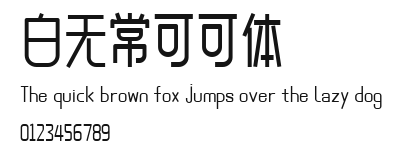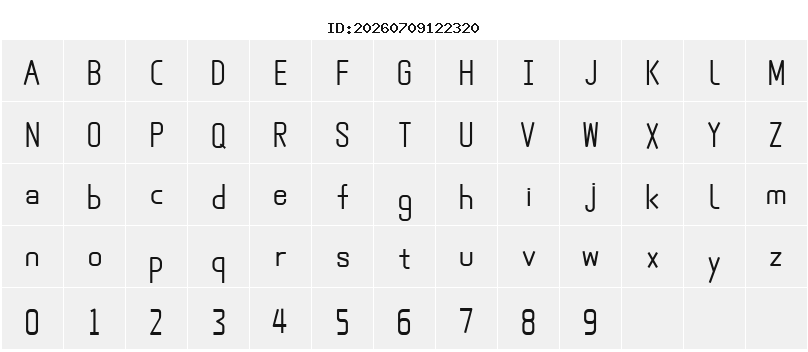
白无常可可体 Preview
• Font Name: 白无常可可体
• Font Style: 粗体
• Full Font Name: 白无常可可体
• Designer: LBK
• Manufacturer: LBK
About 白无常可可体.ttf
白无常可可体.ttf is a modern, elegant sans-serif font designed for ultimate readability and visual harmony. Perfect for branding, headlines, web design, and print materials.